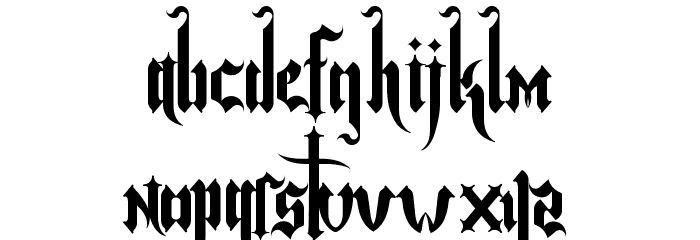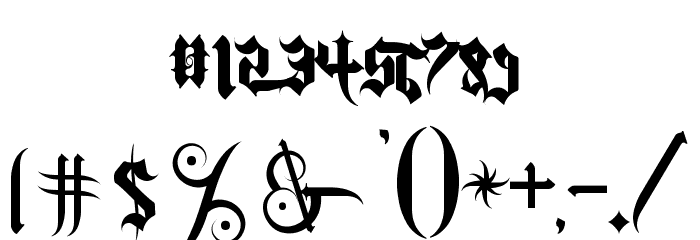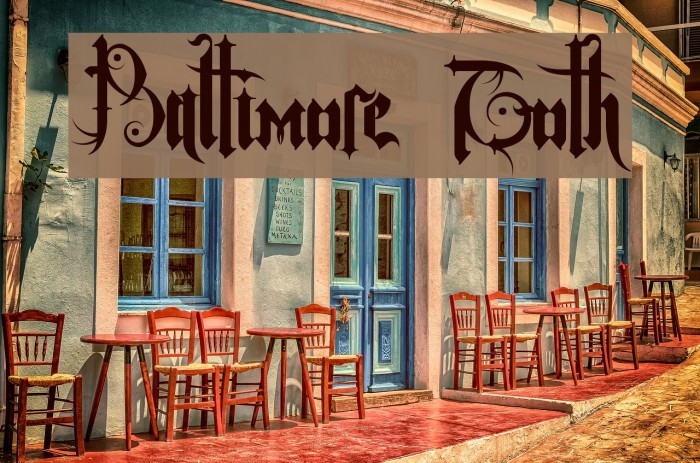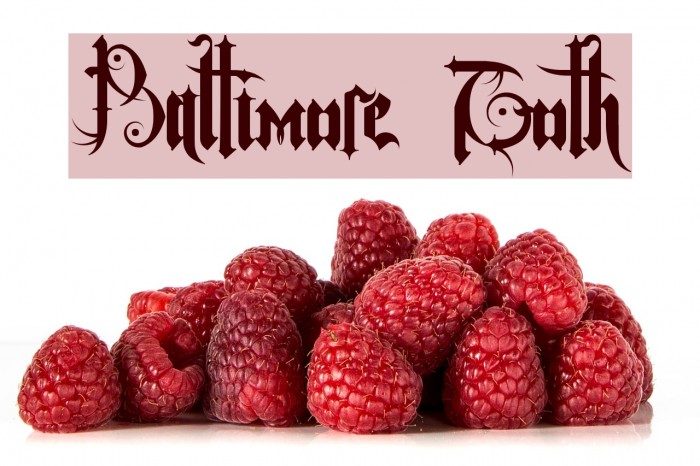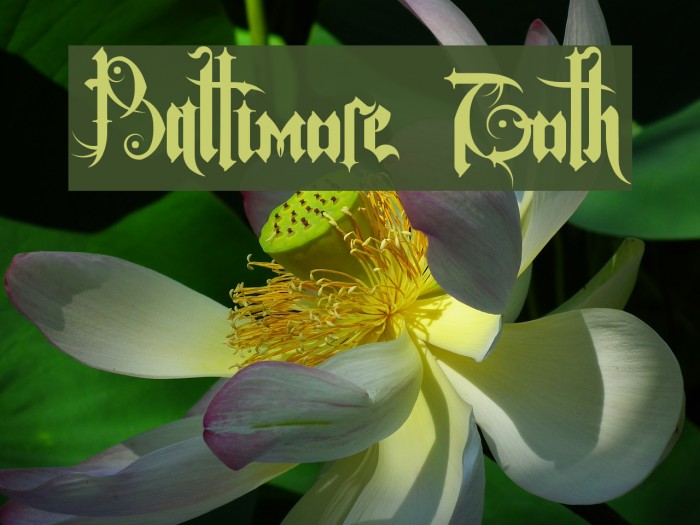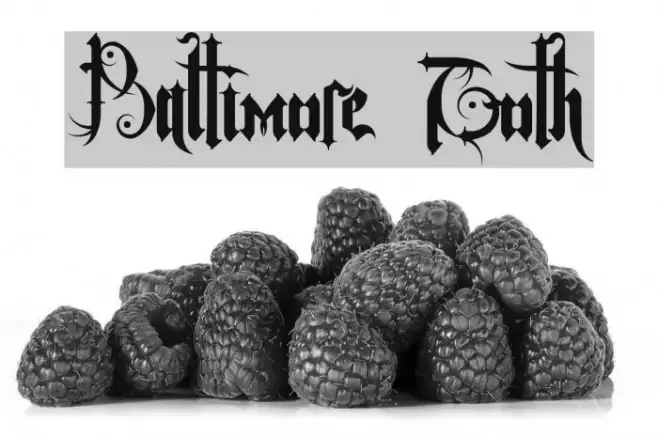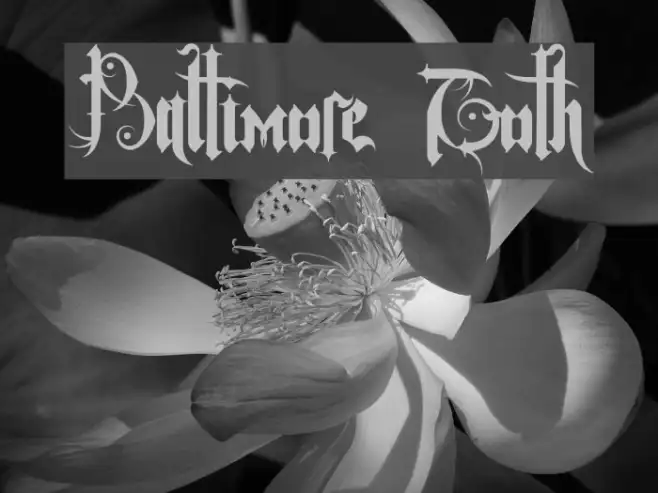
Baltimore Goth Font
This font exhibits a striking and intricate design, characterized by its elaborate and ornate Gothic style. The uppercase letters are adorned with sharp, angular serifs and decorative flourishes that give them a medieval, almost calligraphic appearance. The lowercase letters maintain a similar aesthetic, with a slightly more streamlined form that enhances readability while preserving the overall Gothic theme. Numbers and special characters are equally detailed, featuring unique embellishments that make them stand out. The font's bold and dramatic presence makes it ideal for projects that require a touch of historical or fantasy flair.
An ornate Gothic font with intricate details and decorative flourishes.
- Proposed Projects: Ideal for fantasy book covers, historical themed posters, tattoo designs, and gothic-themed branding.
- Use Case: Logos, Headlines, Decorative text